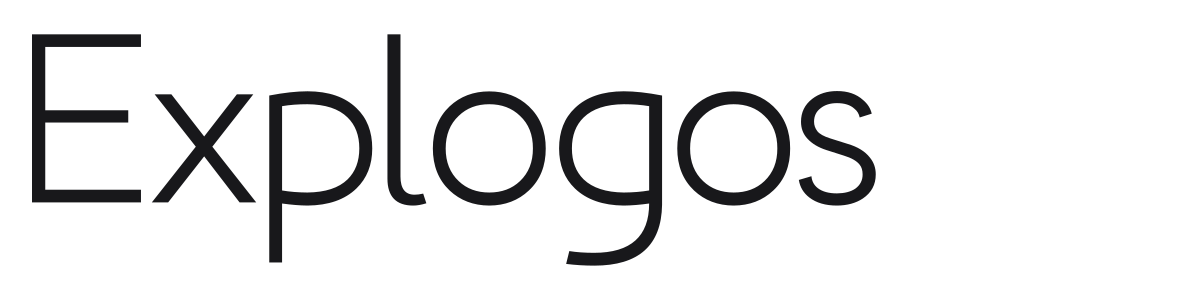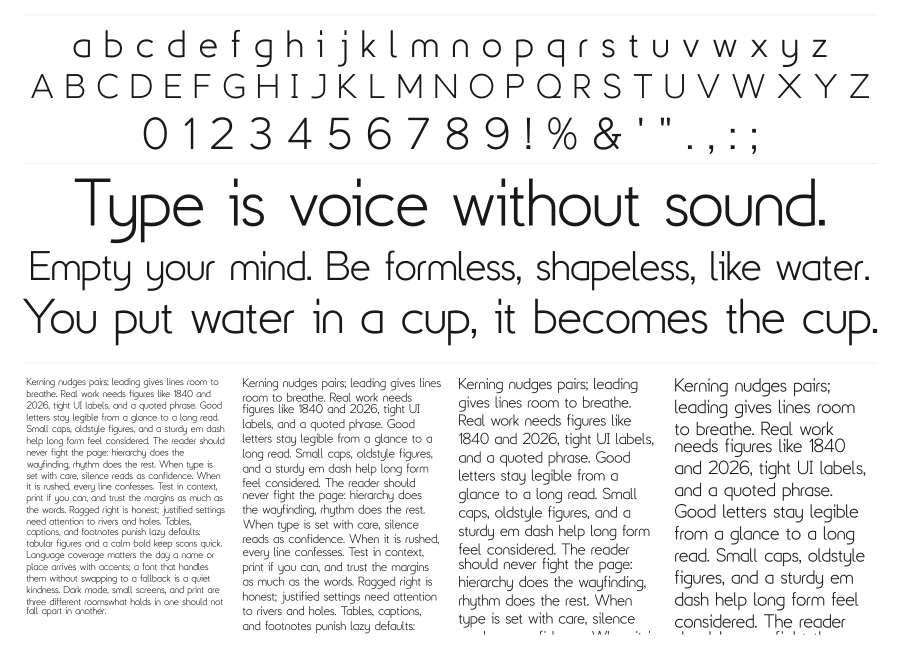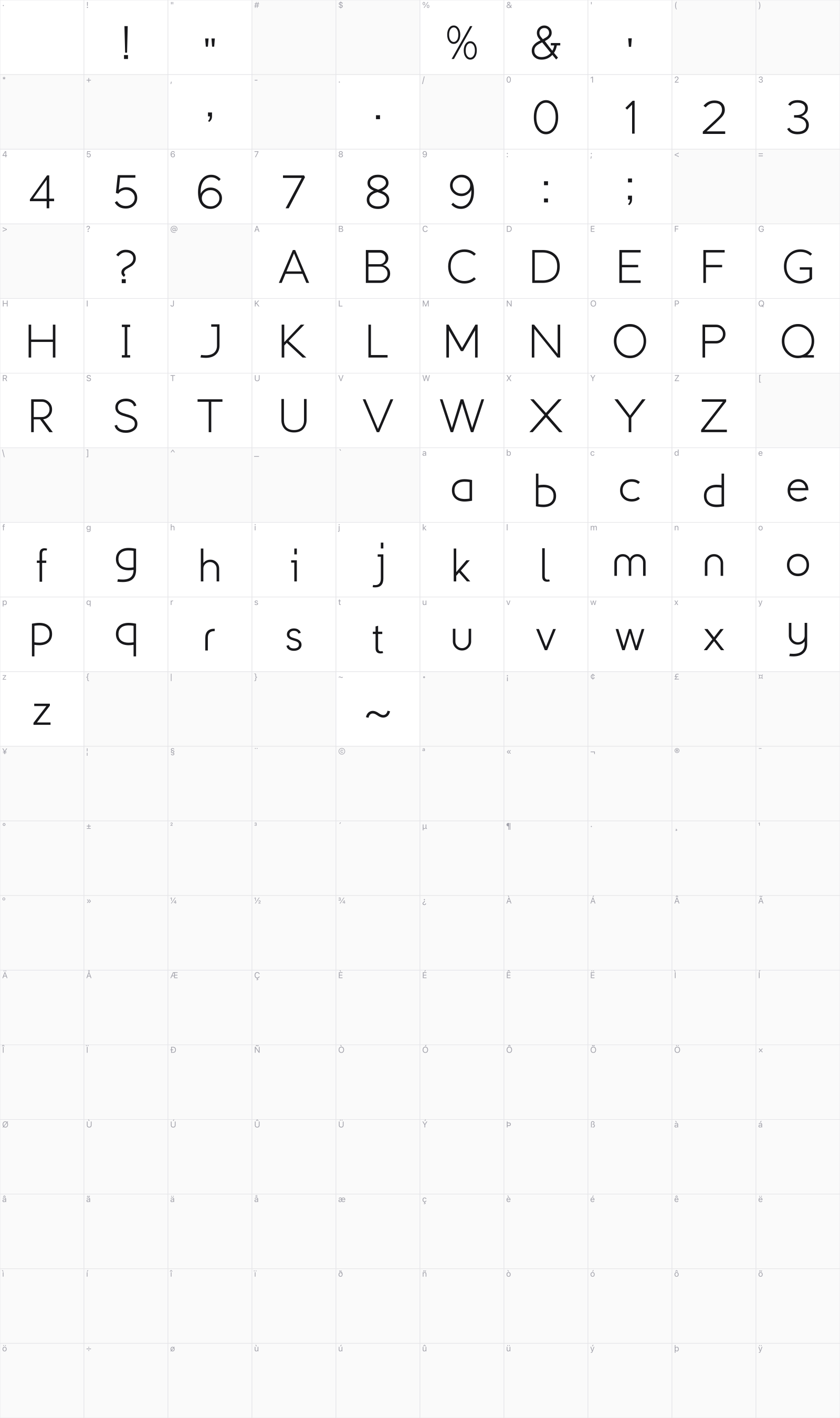
Explogos
Explogos is a light geometric sans-serif with wide, open proportions and a clean monoweight stroke. Its circular forms and large counters give it a soft, airy quality that sits somewhere between functional modernism and approachable minimalism. Comfortable at headline sizes and in branding contexts where lightness and clarity are priorities.